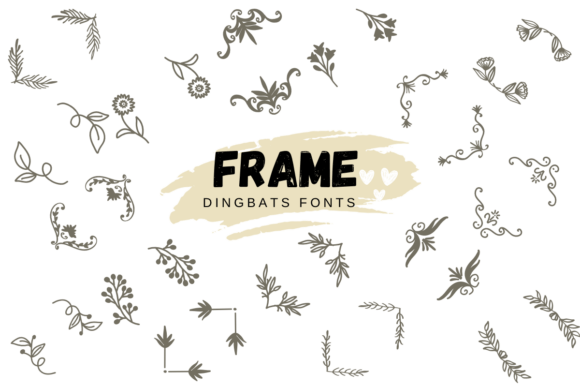
Introducing Frame Font: Elevate Your Designs with Delicate Floral Elements and Ornate Decorations
Are you looking for a unique and elegant way to add a touch of sophistication to your creative projects? Look no further than Frame Font, a beautiful dingbats font featuring a collection of delicate floral elements, decorative corners, and stylish ornamental designs. Perfect for adding an elegant touch to invitations, greeting cards, branding, or digital artwork, this font provides a unique way to create custom frames and borders with ease.
What is Frame Font?
Frame Font is a dingbats font that offers a stunning collection of hand-drawn embellishments, including delicate floral elements, decorative corners, and stylish ornamental designs. This font is specifically designed to help you add an elegant touch to your creative projects, making it perfect for a variety of applications, from invitations and greeting cards to branding and digital artwork.
Key Features of Frame Font
- Delicate Floral Elements: Frame Font features a beautiful collection of delicate floral elements, including flowers, leaves, and vines, that can be used to create stunning frames and borders.
- Decorative Corners: The font includes a range of decorative corners that can be used to add a touch of elegance to your designs.
- Stylish Ornamental Designs: Frame Font also features a collection of stylish ornamental designs, including intricate patterns and motifs, that can be used to add a unique touch to your creative projects.
- Easy to Use: Frame Font is incredibly easy to use, with a simple and intuitive design that makes it easy to create custom frames and borders.
Uses for Frame Font
Frame Font is a versatile font that can be used in a variety of creative projects, including:
- Invitations: Add an elegant touch to your invitations with Frame Font’s delicate floral elements and decorative corners.
- Greeting Cards: Create beautiful greeting cards with Frame Font’s stylish ornamental designs and intricate patterns.
- Branding: Use Frame Font to add a touch of sophistication to your branding materials, including logos, business cards, and letterheads.
- Digital Artwork: Frame Font is perfect for digital artists, providing a unique way to add intricate, hand-drawn embellishments to your artwork.
Benefits of Using Frame Font
There are many benefits to using Frame Font in your creative projects, including:
- Elegant Designs: Frame Font provides a unique and elegant way to add a touch of sophistication to your designs.
- Increased Creativity: With Frame Font, you can create custom frames and borders with ease, giving you more creative freedom to experiment with different designs.
- Time-Saving: Frame Font is incredibly easy to use, saving you time and effort when creating custom frames and borders.
- Versatility: Frame Font can be used in a variety of creative projects, making it a versatile addition to your font collection.
Tips and Tricks for Getting the Most Out of Frame Font
Here are a few tips and tricks for getting the most out of Frame Font:
- Experiment with Different Combinations: Don’t be afraid to experiment with different combinations of Frame Font’s delicate floral elements, decorative corners, and stylish ornamental designs.
- Use Frame Font with Other Fonts: Frame Font can be used in combination with other fonts to create a unique and visually appealing design.
- Adjust the Size and Color: Adjust the size and color of Frame Font’s elements to fit your design.
Frame Font is a beautiful dingbats font that offers a unique and elegant way to add a touch of sophistication to your creative projects. With its delicate floral elements, decorative corners, and stylish ornamental designs, Frame Font is perfect for adding an elegant touch to invitations, greeting cards, branding, or digital artwork. Whether you’re a designer, artist, or DIY enthusiast, Frame Font is a versatile and easy-to-use font that can help you create stunning designs with ease.
- Is Frame Font easy to use?: Yes, Frame Font is incredibly easy to use, with a simple and intuitive design that makes it easy to create custom frames and borders.